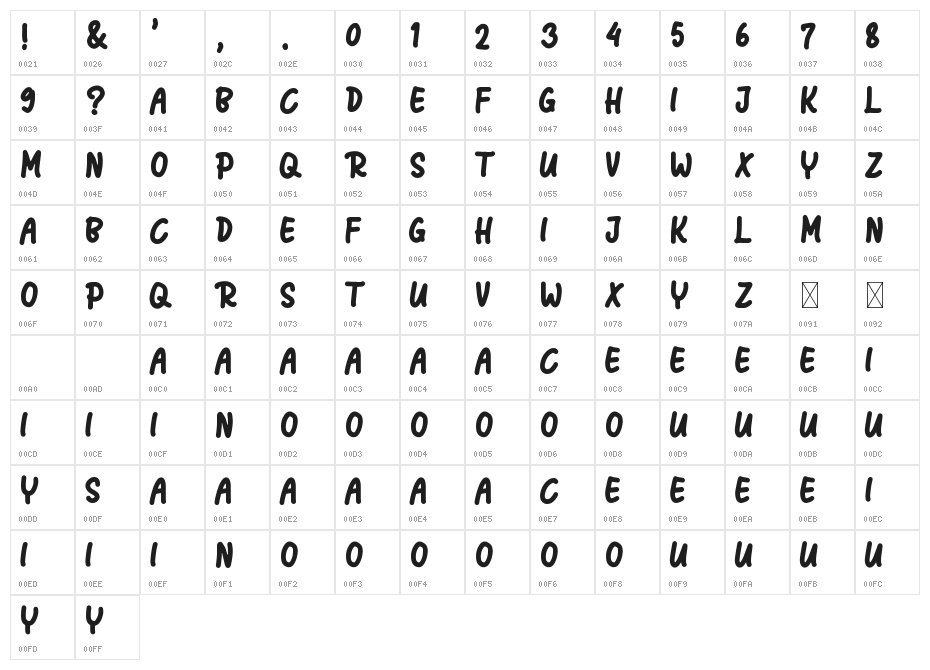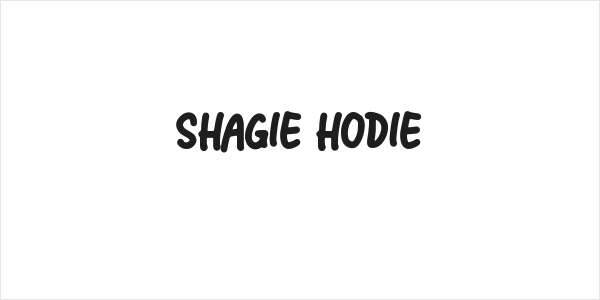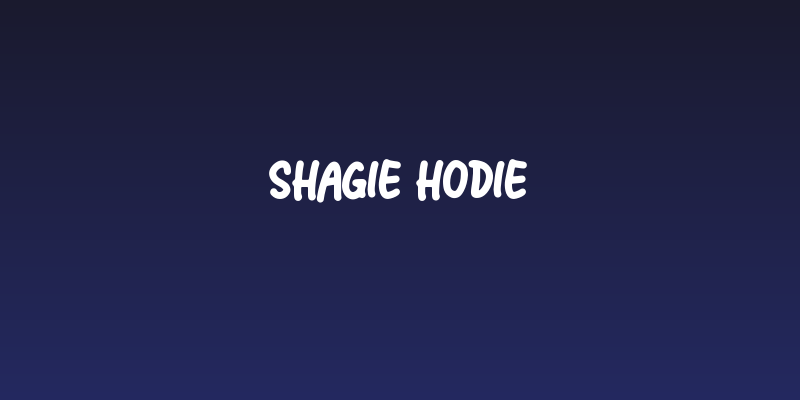
Shagie Hodie Font
Shagie Hodie Description
This font features a playful and bold handwritten style, characterized by its rounded and smooth letterforms. The strokes are thick and consistent, giving it a strong presence on the page. The letters are slightly slanted, adding a dynamic and informal touch. The overall appearance is friendly and approachable, making it suitable for casual and creative projects. The numbers and special characters maintain the same playful aesthetic, ensuring consistency across all text elements.
| Proposed Projects | Ideal for children's books, playful branding, greeting cards, and social media graphics. |